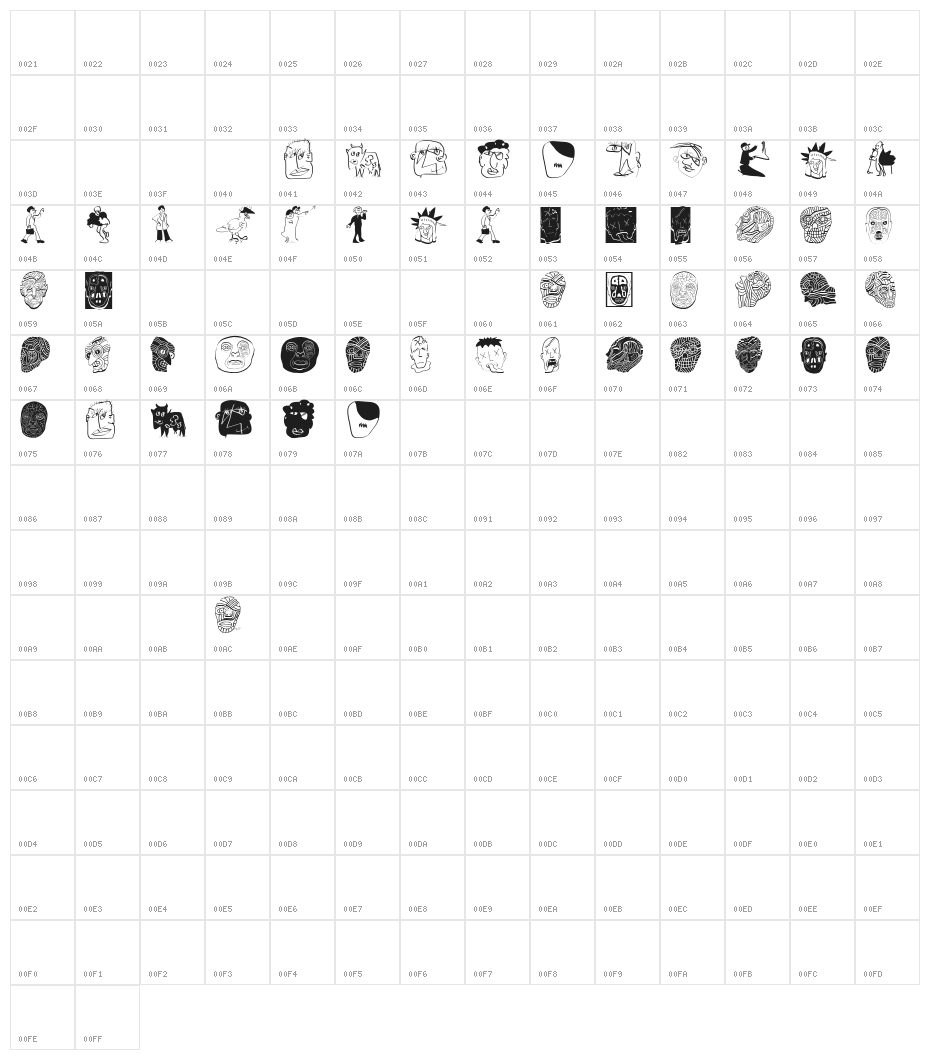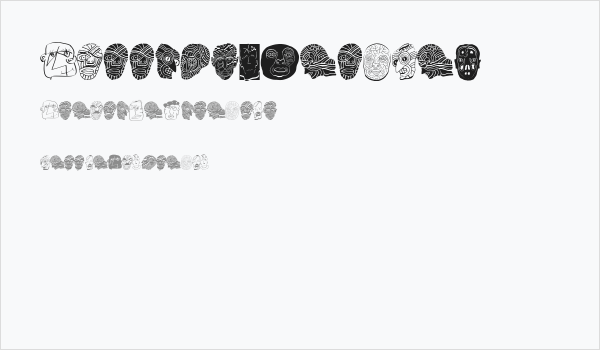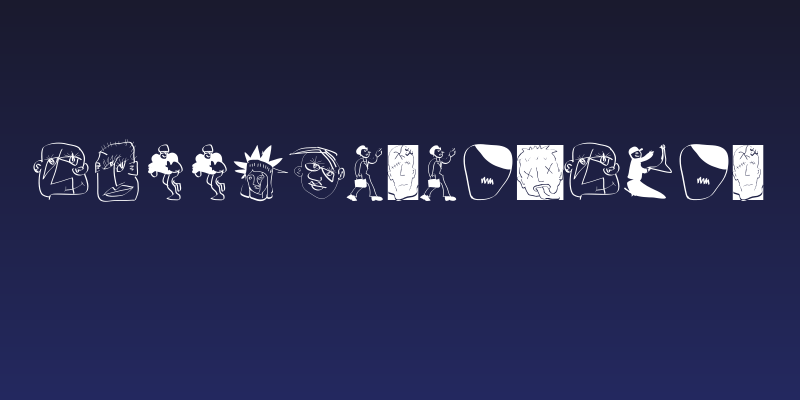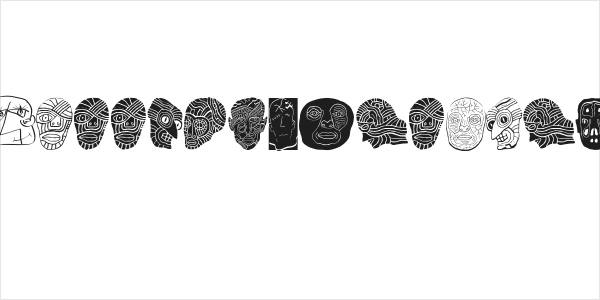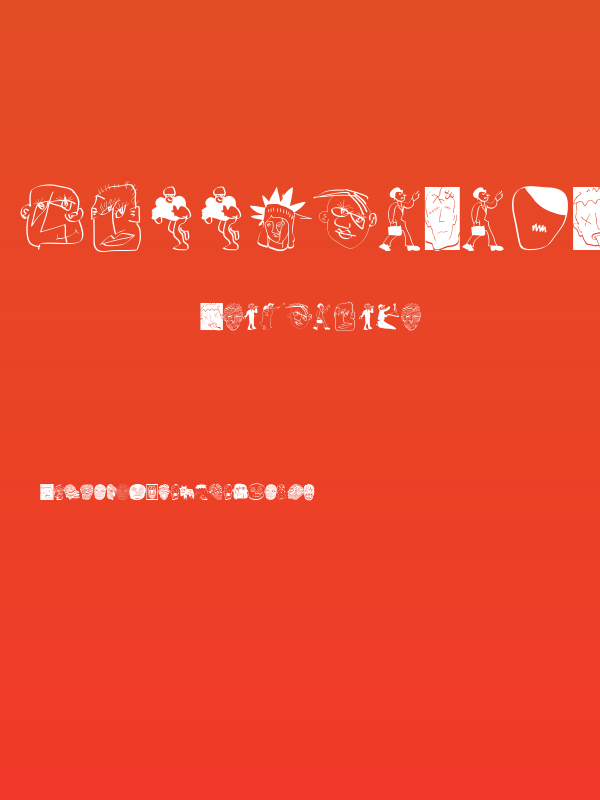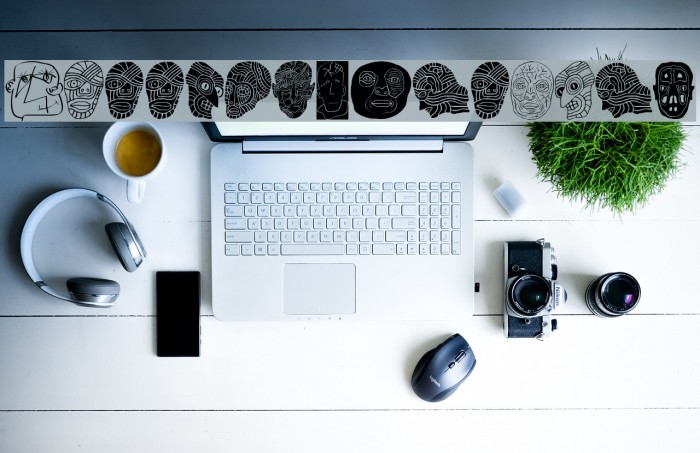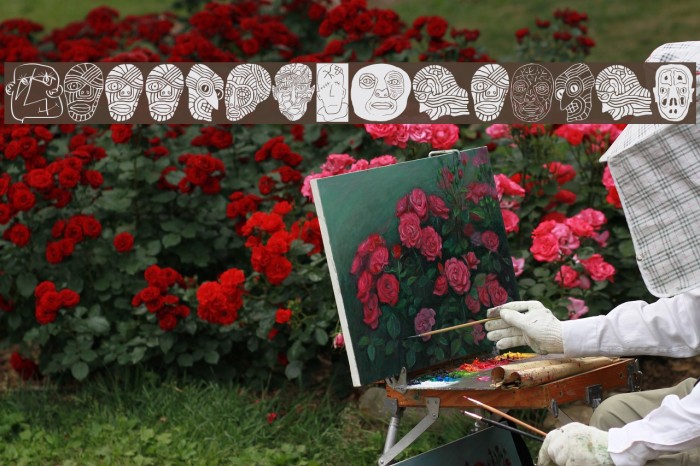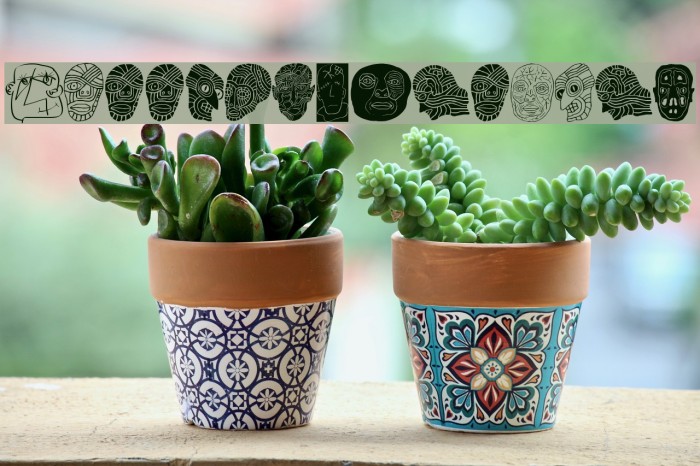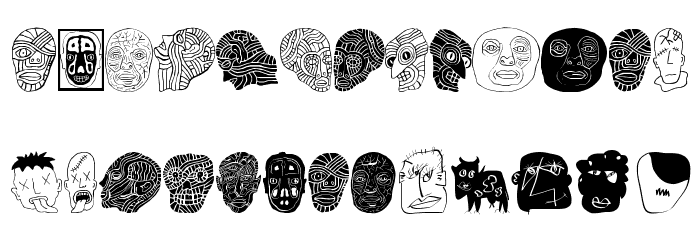
CalligrSketches Font
CalligrSketches Description
A highly decorative and artistic font featuring hand-drawn, sketch-like illustrations of abstract faces, figures, and expressive line art. Each character is unique, resembling modern art doodles or caricatures, with a playful and experimental visual style.
| Overall Style | Decorative, Artistic, Modern |
| Use Case | Logos, Posters, Headlines, Artistic projects |
| Proposed Projects | Album covers, art posters, creative branding, editorial illustrations, event flyers, zines. |